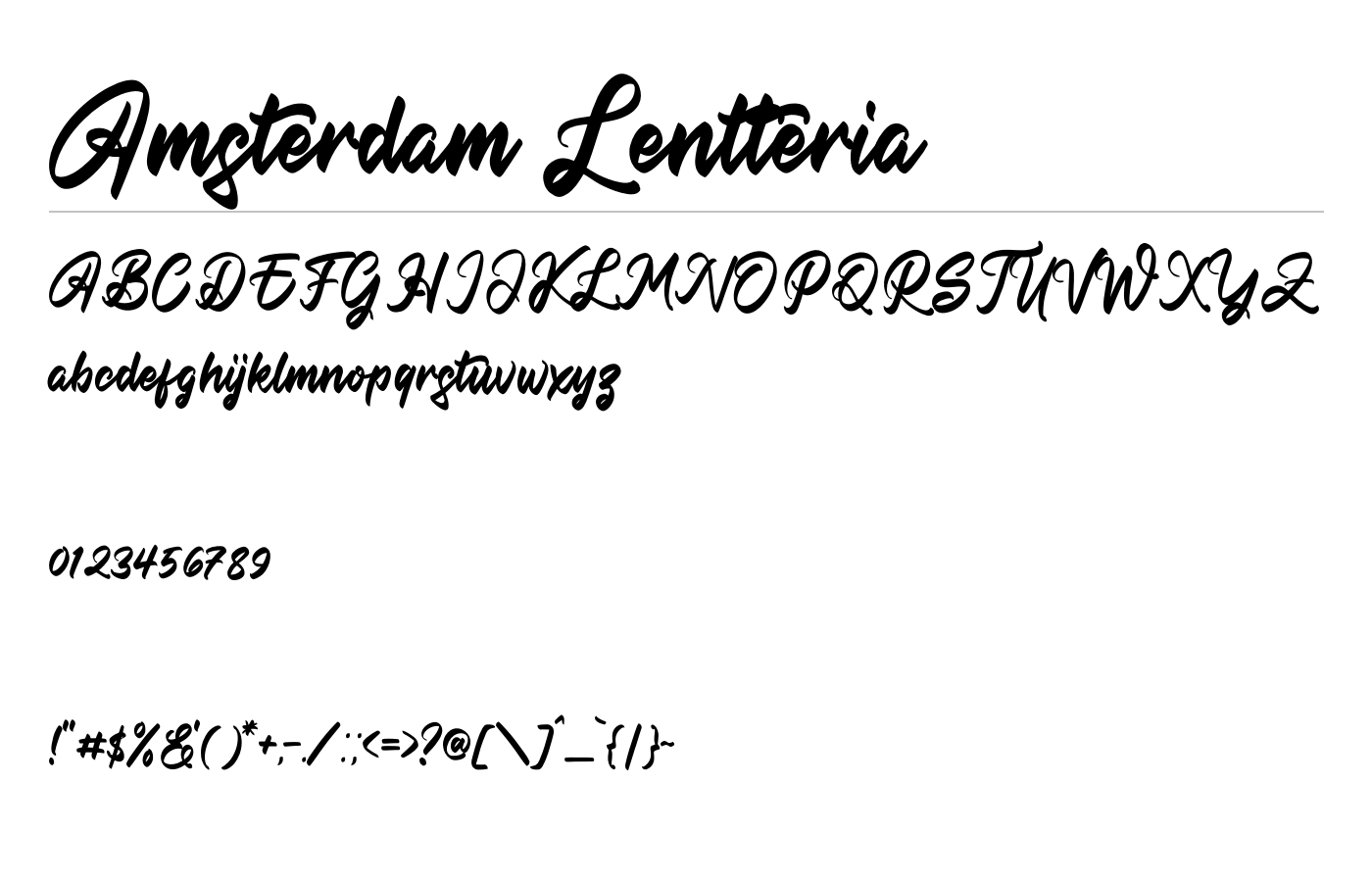
Amsterdam Lentteria is a lively script font with a bold, brush-like appearance that combines casual charm with a touch of elegance. Its fluid strokes and moderate contrast give it a friendly, dynamic feel, making it perfect for creative branding, invitations, and eye-catching headlines. This font works well where a personal, handwritten style is desired but with strong readability and visual impact.
Amsterdam Lentteria Font
About Amsterdam Lentteria Font